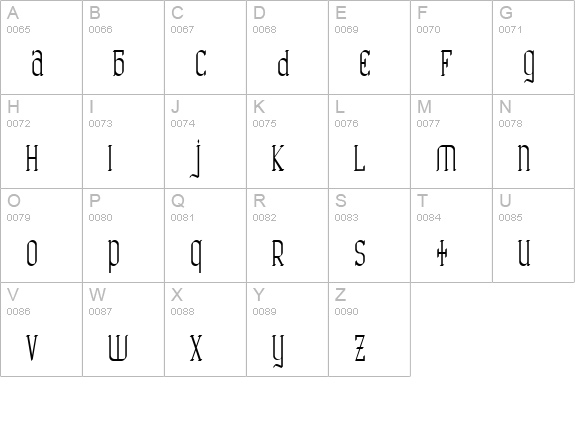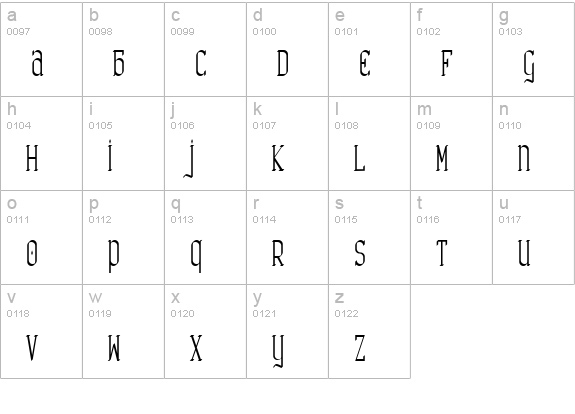
Catharsis Requiem Font Details
Catharsis Requiem font is a stunning display typeface that beautifully captures the essence of emotional release. Its intricate design features elegant and flowing letterforms, creating a harmonious balance between modernity and classic elegance. With its delicate strokes and graceful curves, this font brings a sense of tranquility and serenity to any design project. Catharsis Requiem font is not only visually captivating but also offers a unique sense of catharsis. It evokes a powerful emotional response, allowing the viewer to experience a profound release of pent-up feelings. Whether it is used for branding, packaging, editorial design, or any other creative endeavor, this font has the ability to convey a wide range of emotions with its expressive and evocative nature. What makes Catharsis Requiem font even more remarkable is that it is available for free. Yes, you read that right – this extraordinary typeface can be freely downloaded from FontsMarket.com. With just a few clicks, you can add this gem to your font library and unlock its full potential for your design projects. Whether you are a professional graphic designer or an enthusiast exploring the world of typography, Catharsis Requiem font is a must-have in your collection. Its versatility and captivating beauty make it suitable for a wide range of applications, from elegant invitations to eye-catching headlines. So, why wait? Discover the power of emotional release with Catharsis Requiem font, freely available for download at FontsMarket.com. Unleash your creativity and let this font be the catalyst for your next design masterpiece.